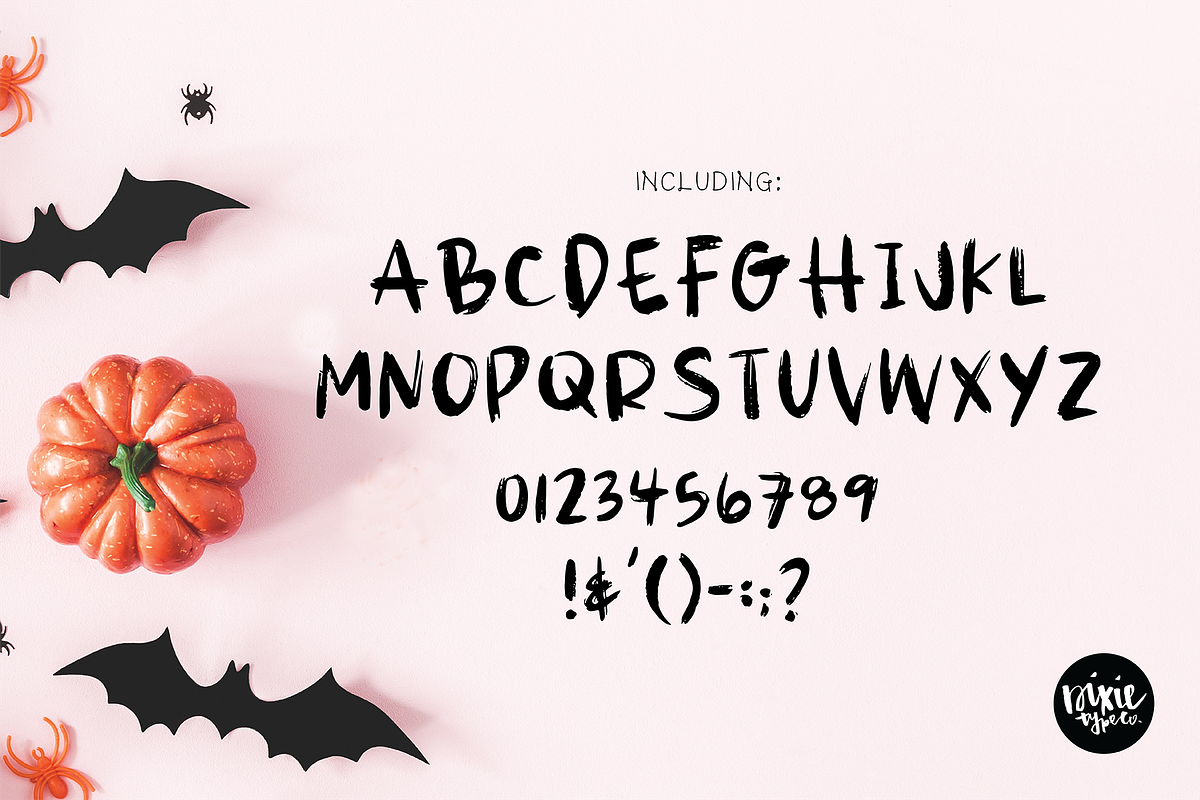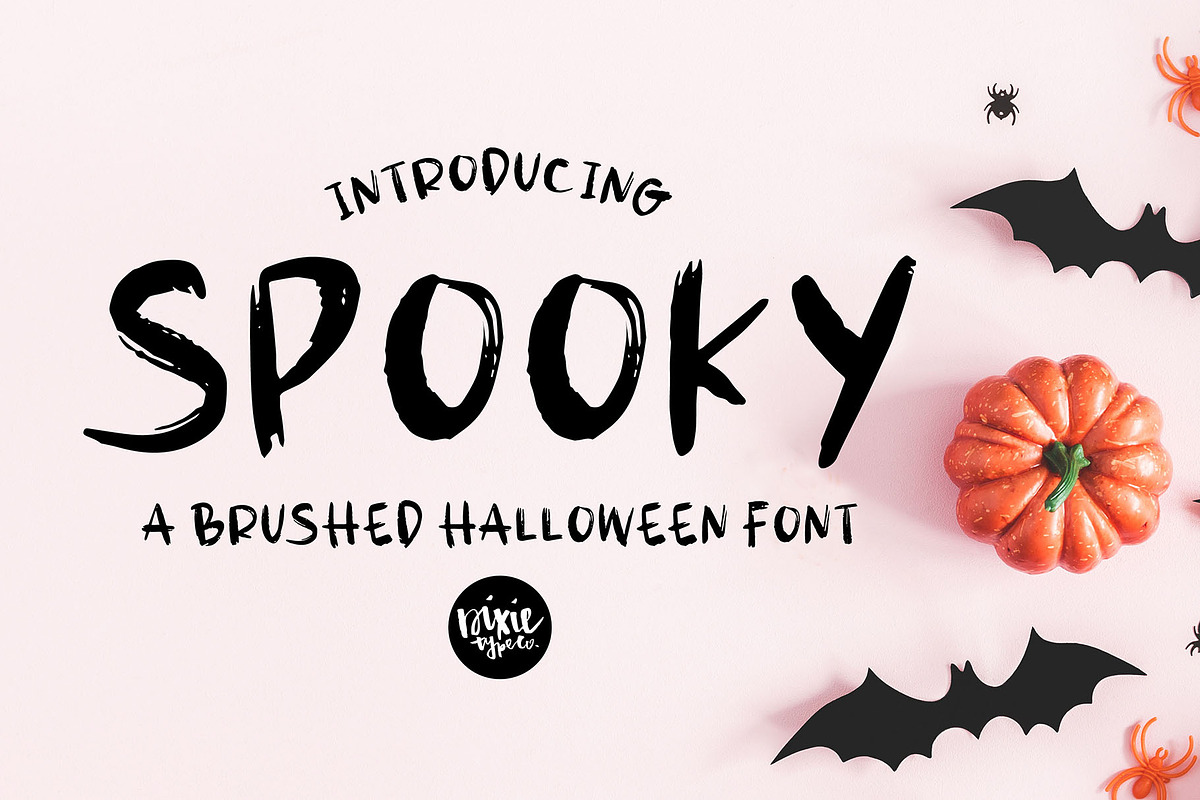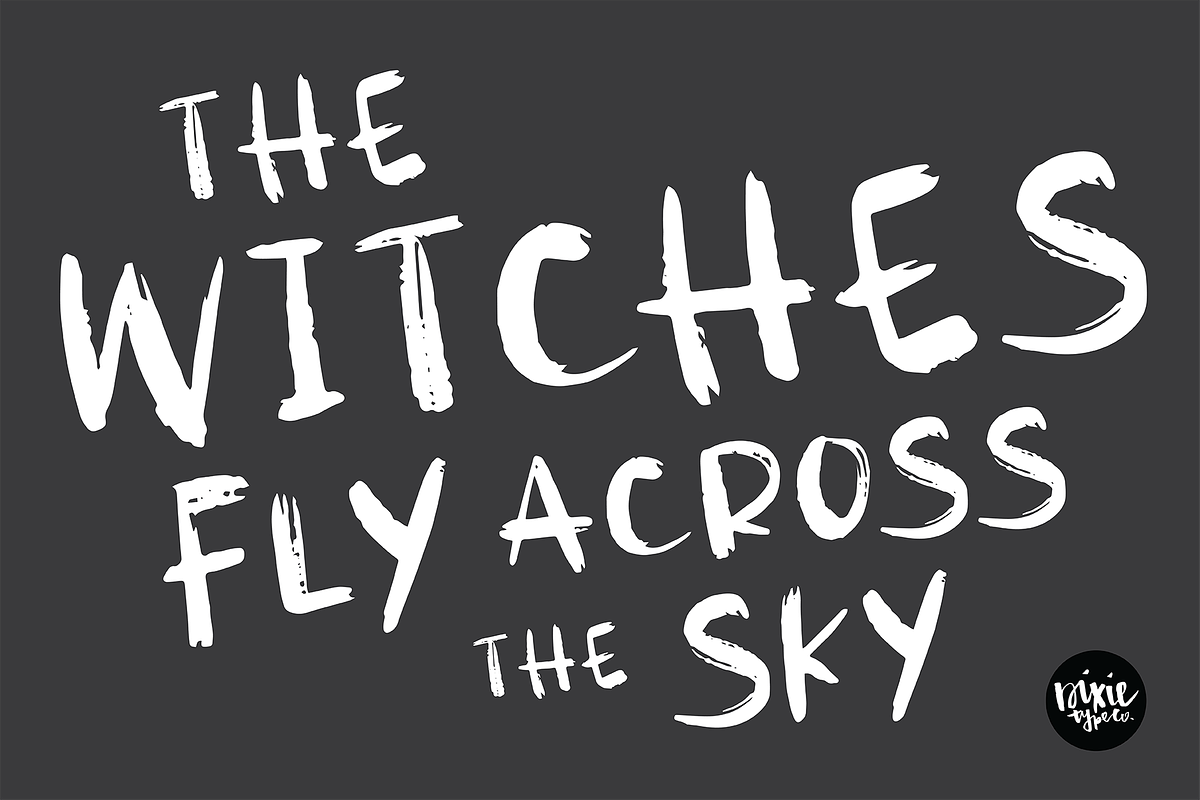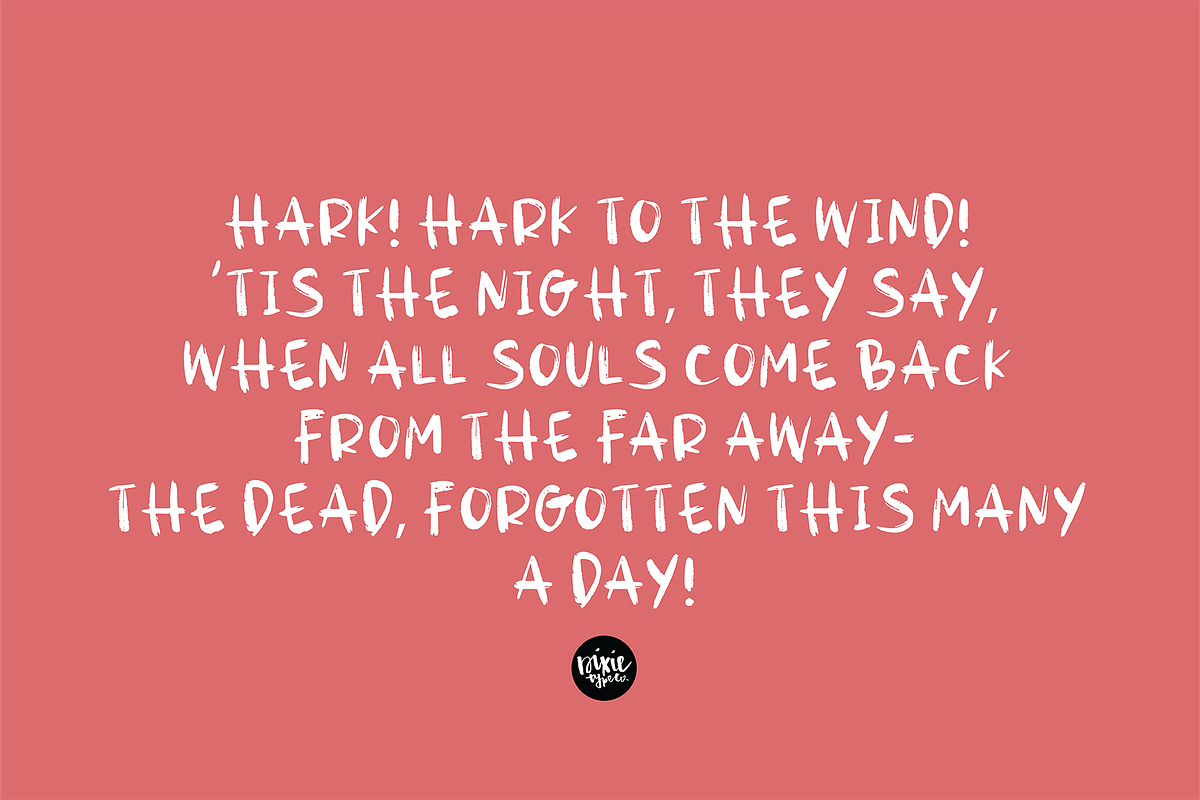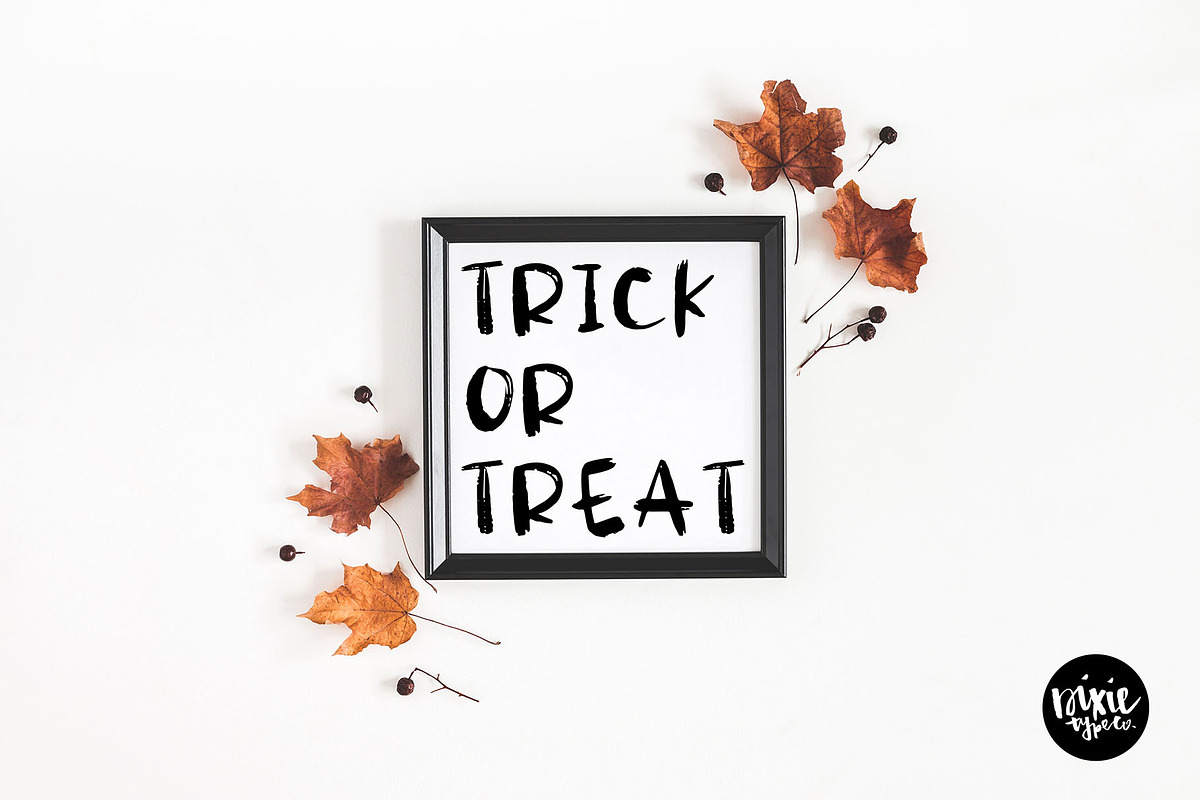
SPOOKY a Halloween Brushed .OTF Font
SPOOKY Brushed Halloween Font
{ A typographic font hand lettered with love by Dixie Type Co. }
This is a distressed brush font. This font is NOT cuttable because of the edges. This is an installable font that will work great with web graphics, party invitations, and other halloween text projects.
- Includes caps characters A-Z (in both upper and lowercase slots) numbers, and basic punctuation.
- DTC Spooky Regular